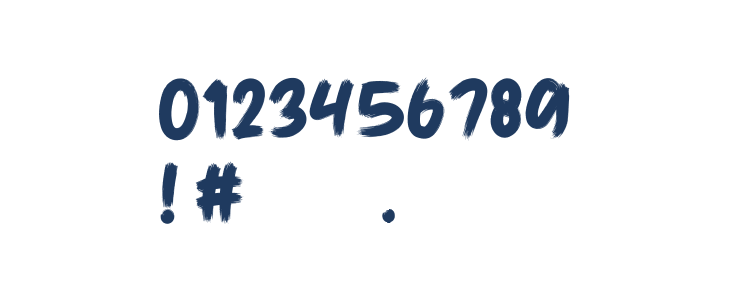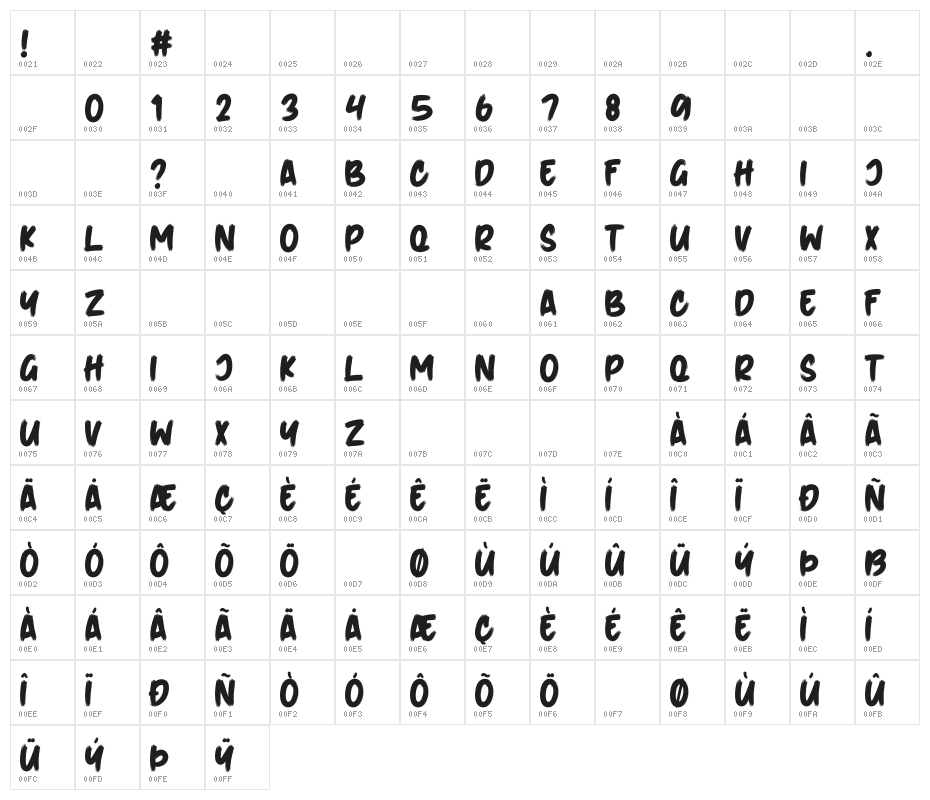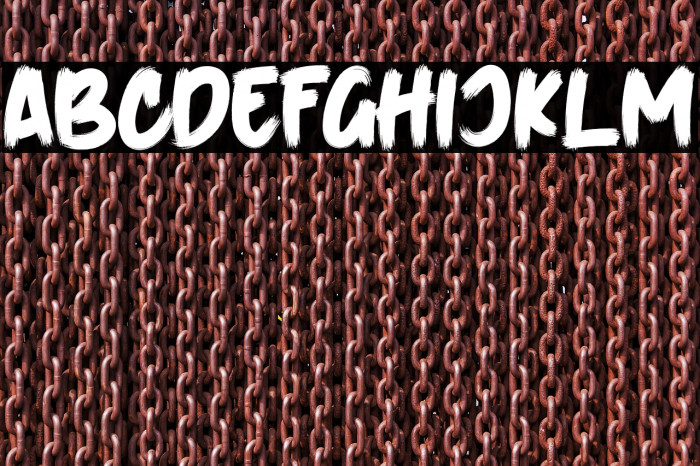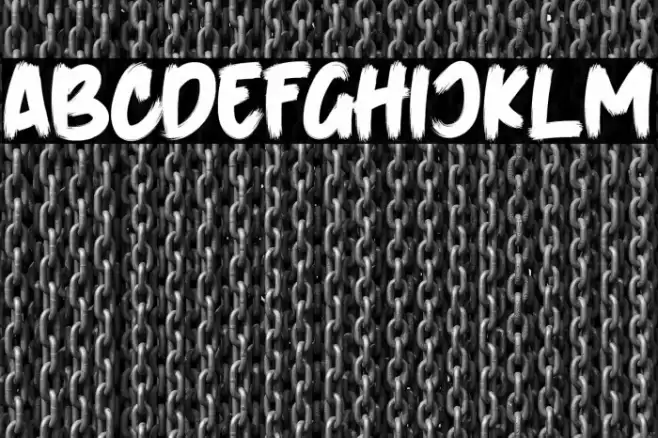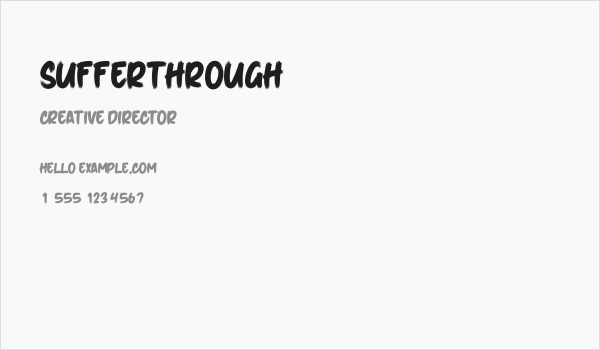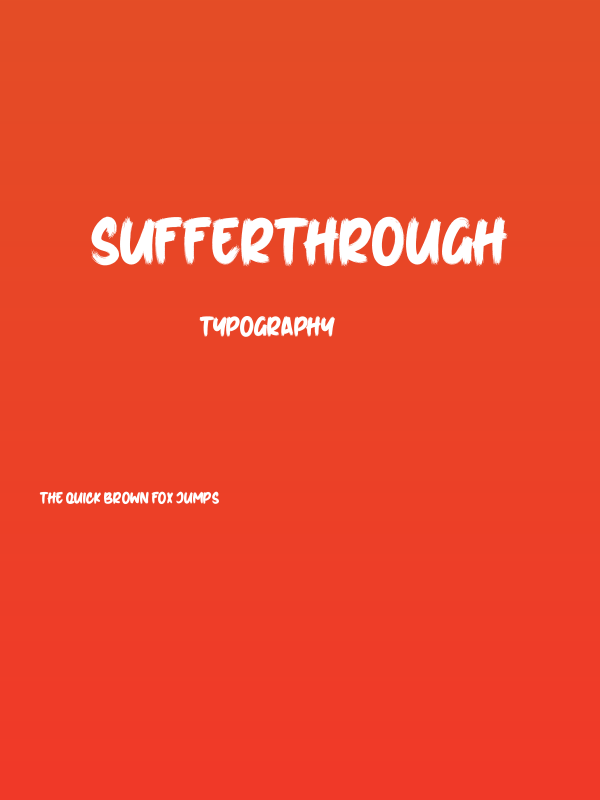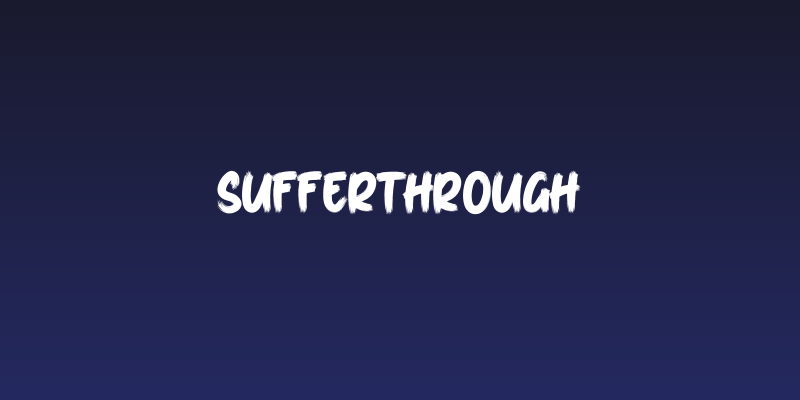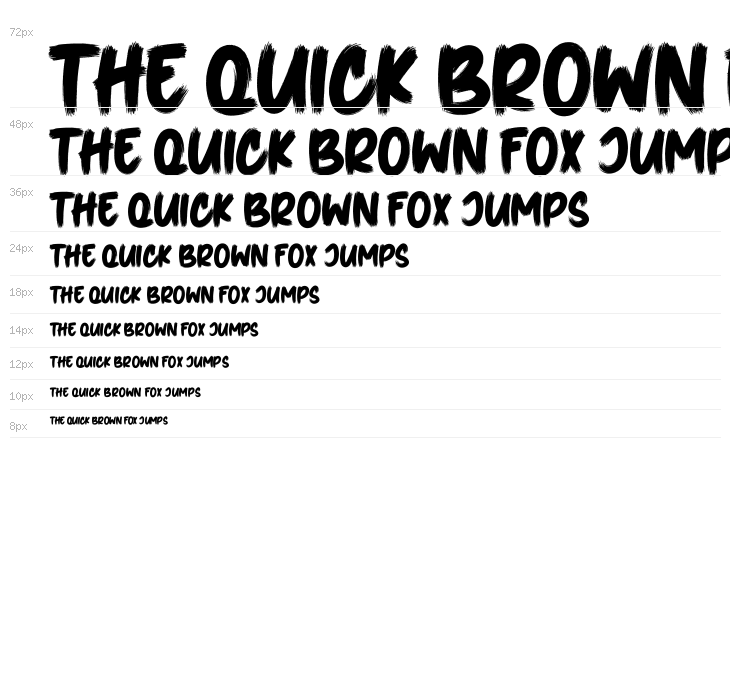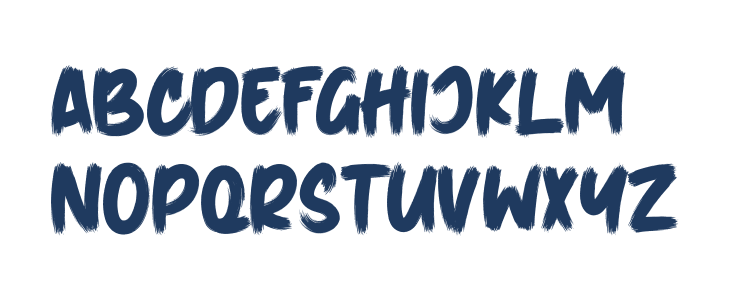
SufferThrough Font
SufferThrough Description
This font features a bold, brushstroke style that exudes energy and dynamism. The characters are crafted with a rough, textured appearance, reminiscent of hand-painted signage. Each letter has a unique, organic feel, with varying stroke widths that add to its expressive nature. The uppercase and lowercase letters maintain a consistent style, ensuring readability while still capturing attention. The numbers and special characters follow the same artistic approach, making them suitable for creative and impactful design projects.
| Proposed Projects | Ideal for posters, branding, album covers, and any project requiring a bold, artistic touch. |